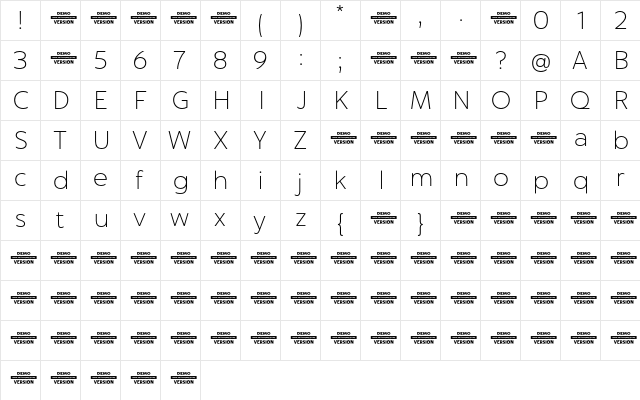
Captura Thin Demo
| Designer | Anita J߲geleit |
Design Context for Captura Typeface
Captura is a composed and adaptable typeface that performs quietly and consistently across a wide range of design contexts. Its slender proportions lend an understated elegance to any composition.